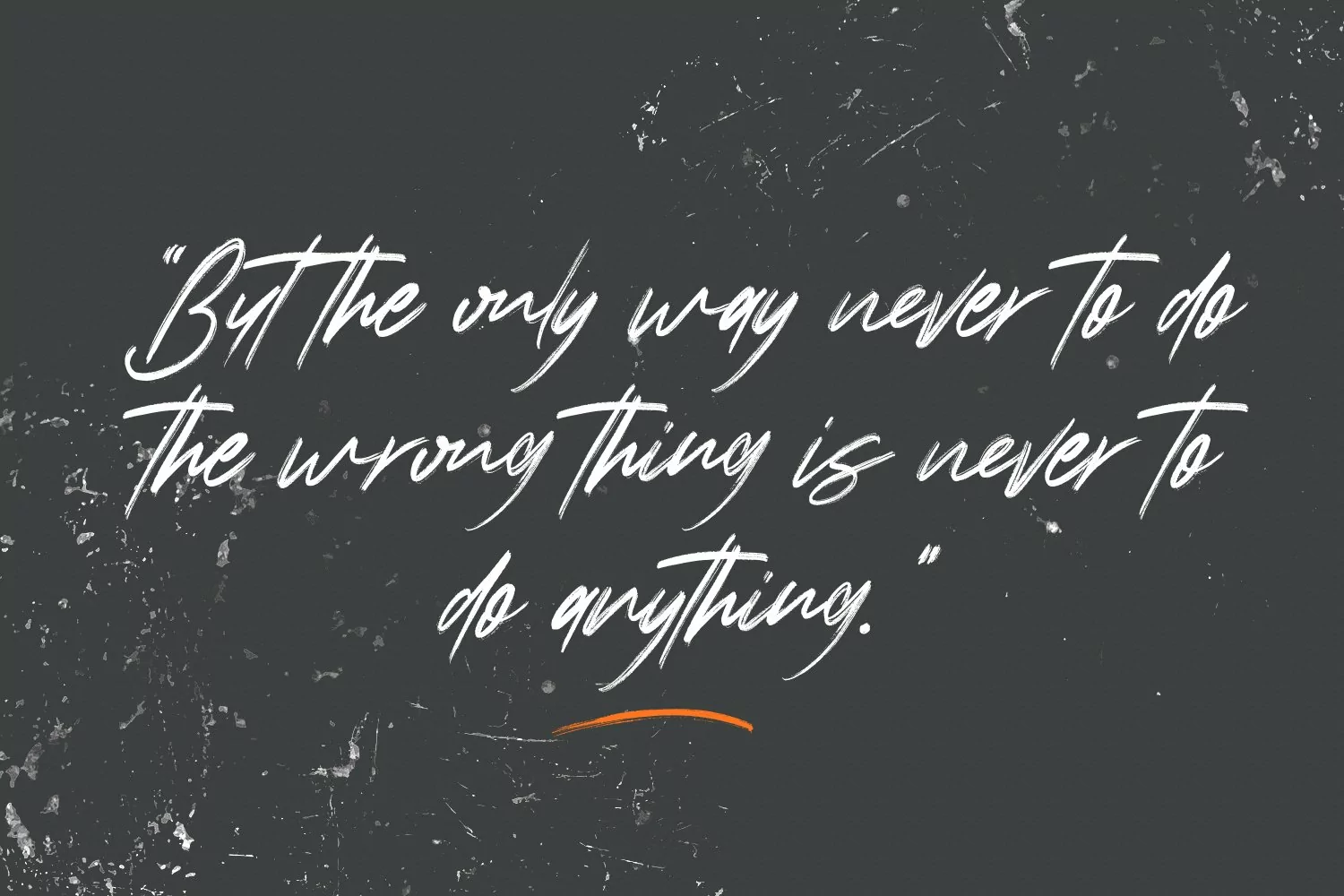
Cashking is an expressive brush script font. With regular rough brush stroke, fun character with some of ligatures and extra swash. To give you an extra creative work. Cashking font support multilingual more than 100+ language. This font is good for logo design, Social media, Movie Titles, Books Titles, a short text even a long text letter and good for your secondary text font with sans or serif. Make a stunning work with Cashking font.